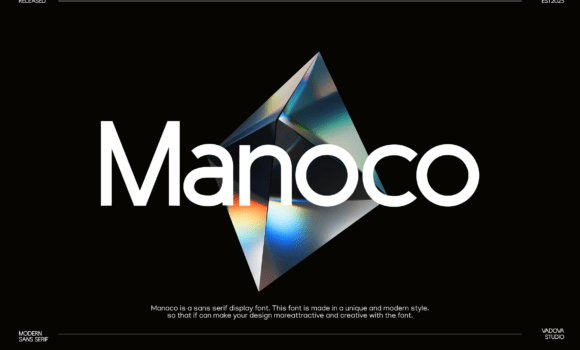
Manoco Font – Free Download Introduction to Manoco Font Elevate your digital presence with Manoco, a cutting-edge sans serif display font that captures a “sleek-and-sophisticated” soul. 📸 Preview Gallery 6 images 📌 Product Name Manoco Font 👤 Author Vadova Std